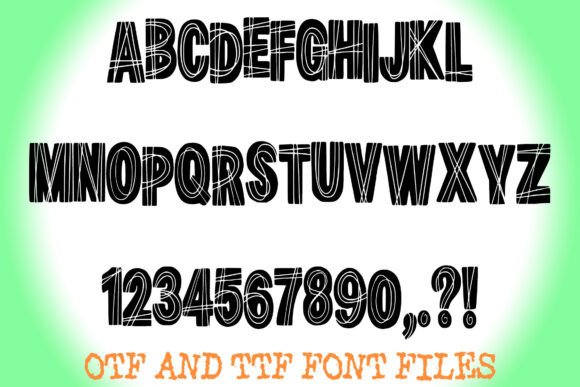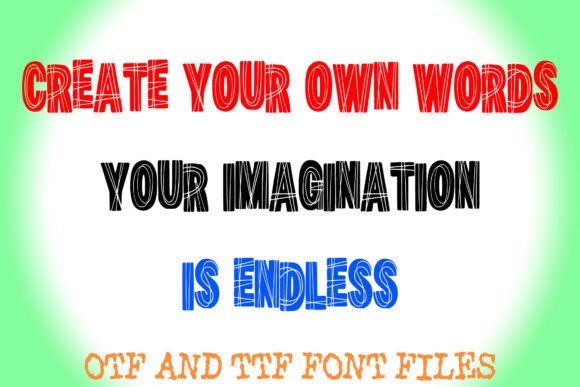
Introduction to Riot Scratch Font
Unleash your inner rebel and make a bold statement with Riot Scratch Font.
This electrifying typeface is engineered to capture the raw, unpolished energy of punk rock and street art, combining strong, assertive letterforms with a unique, aggressively scratched and scrawled internal texture Itโs more than just a font; itโs an anthem of defiance, designed to inject an immediate, edgy, and rebellious attitude into any creative project.
Key Features of Riot Scratch Font